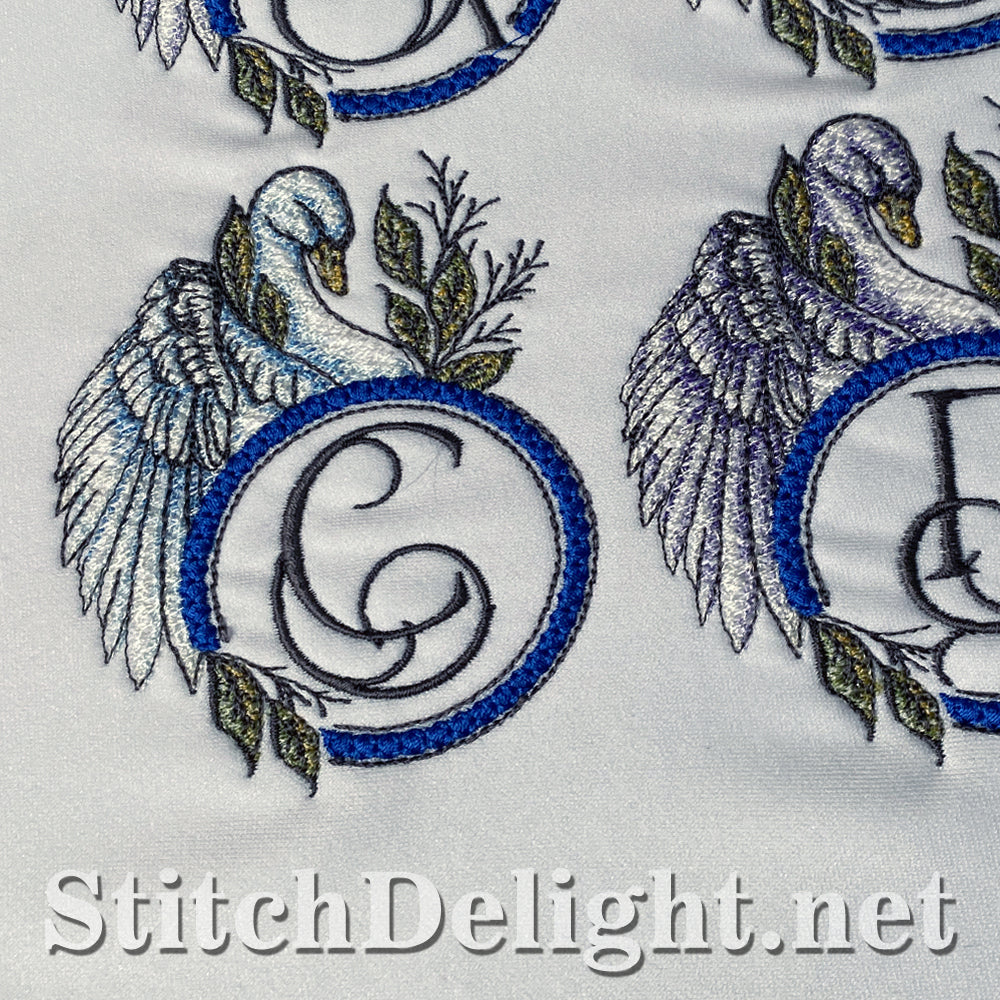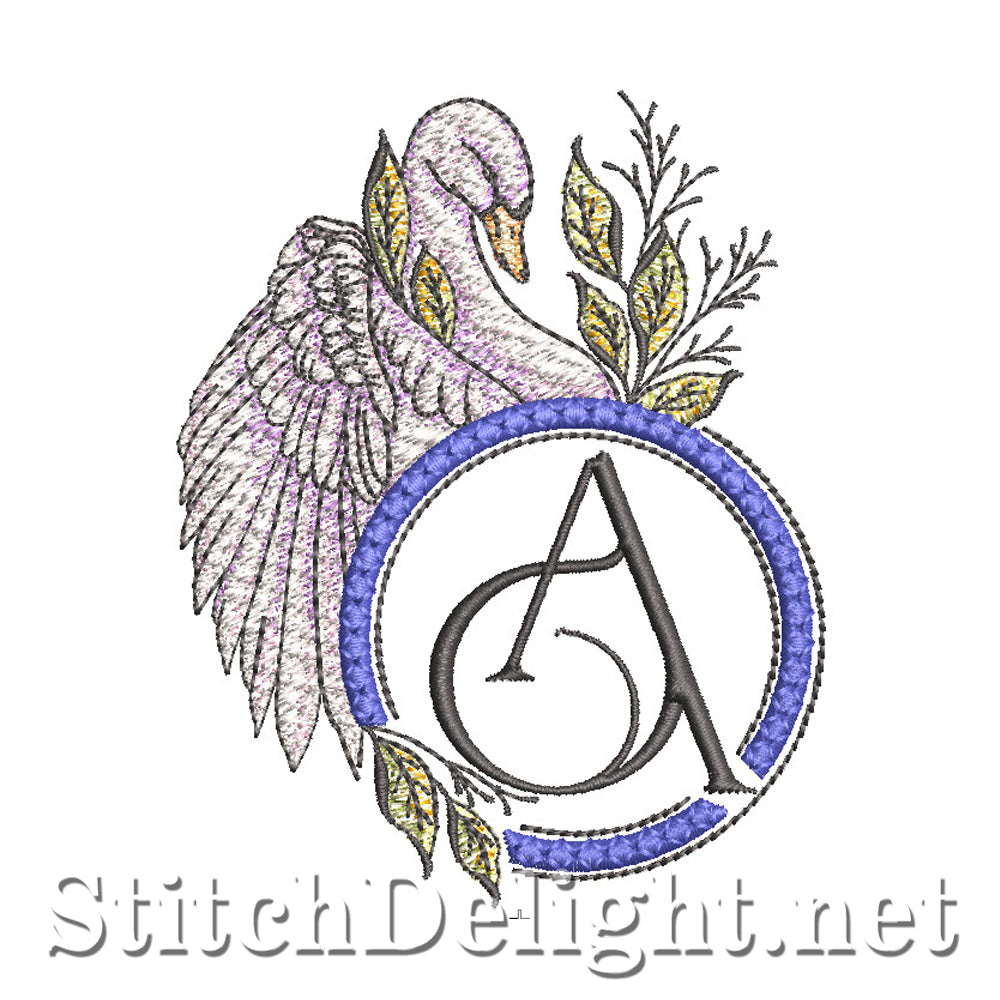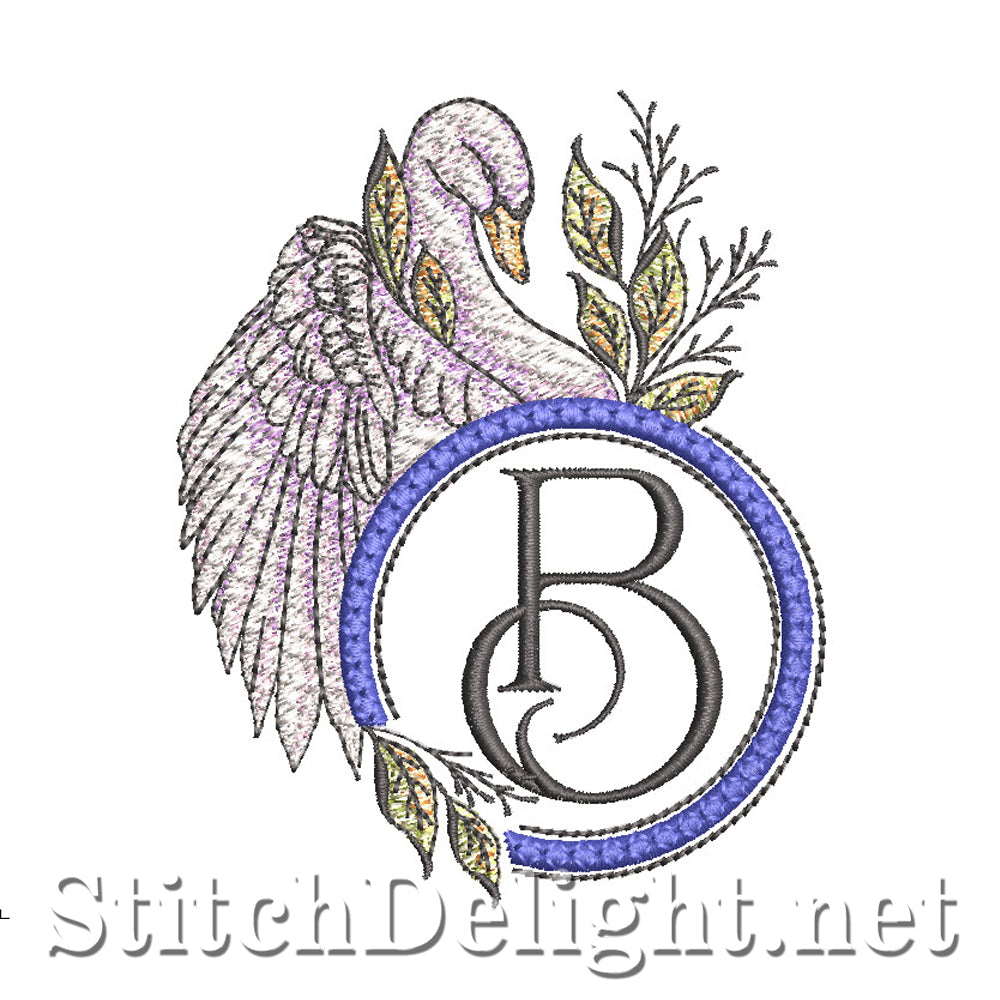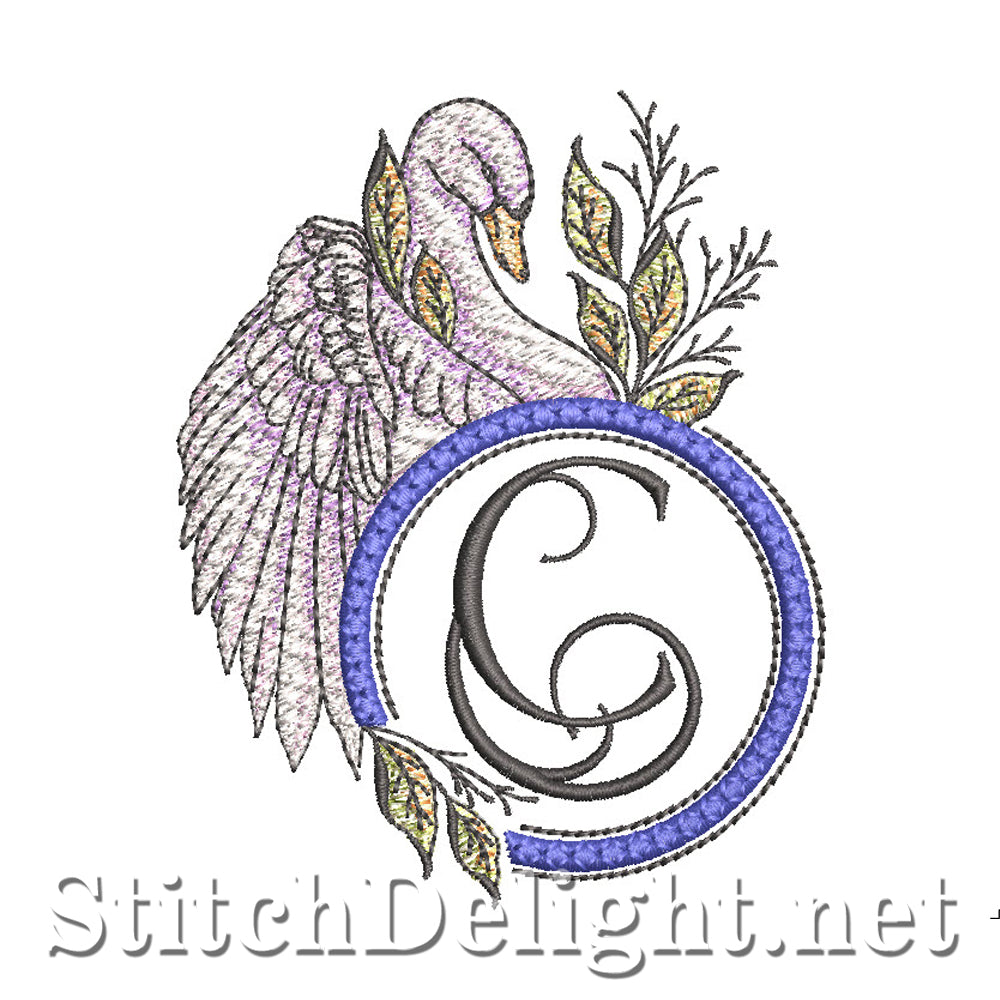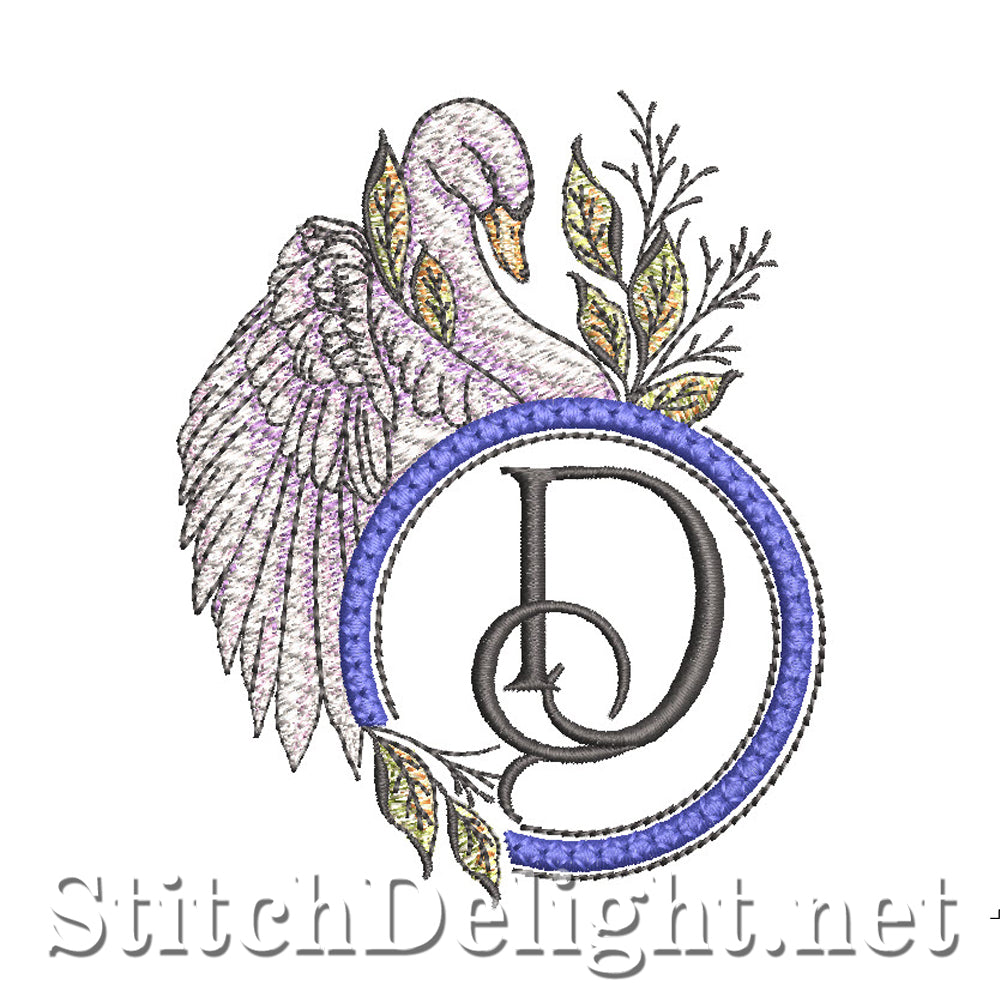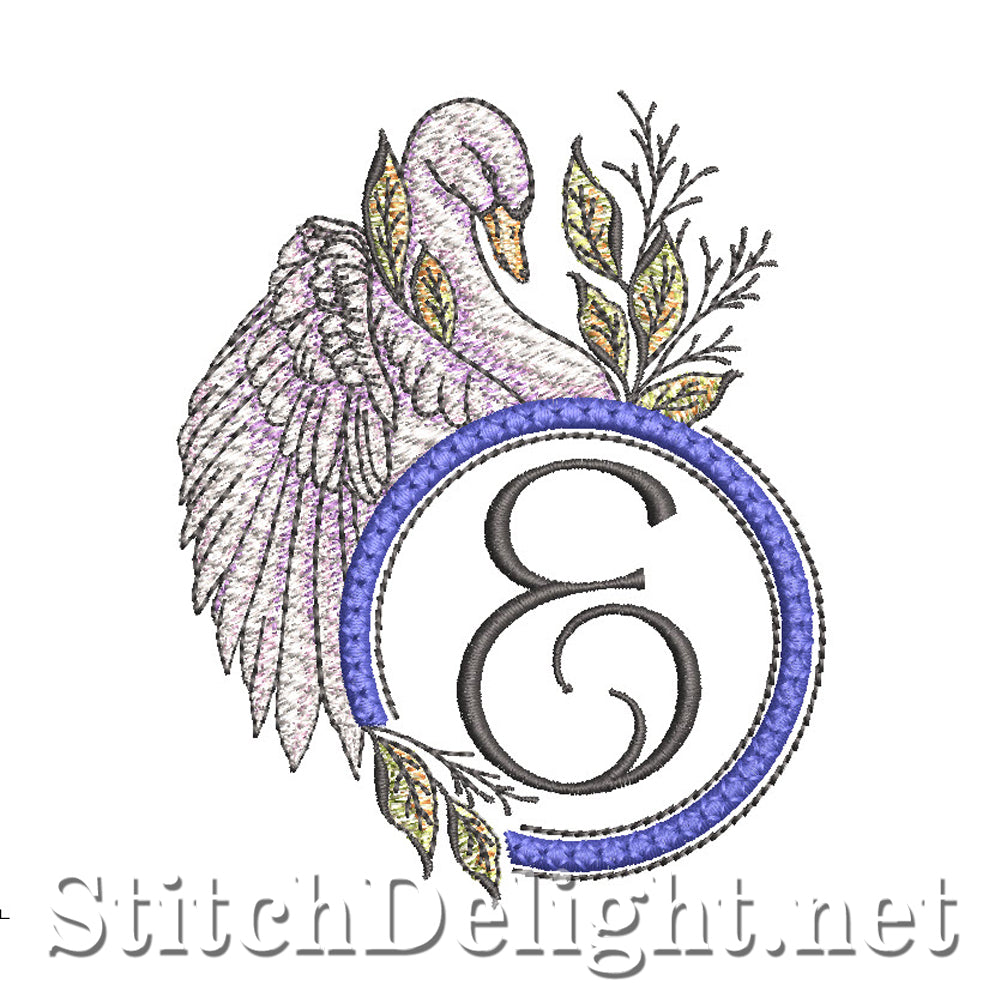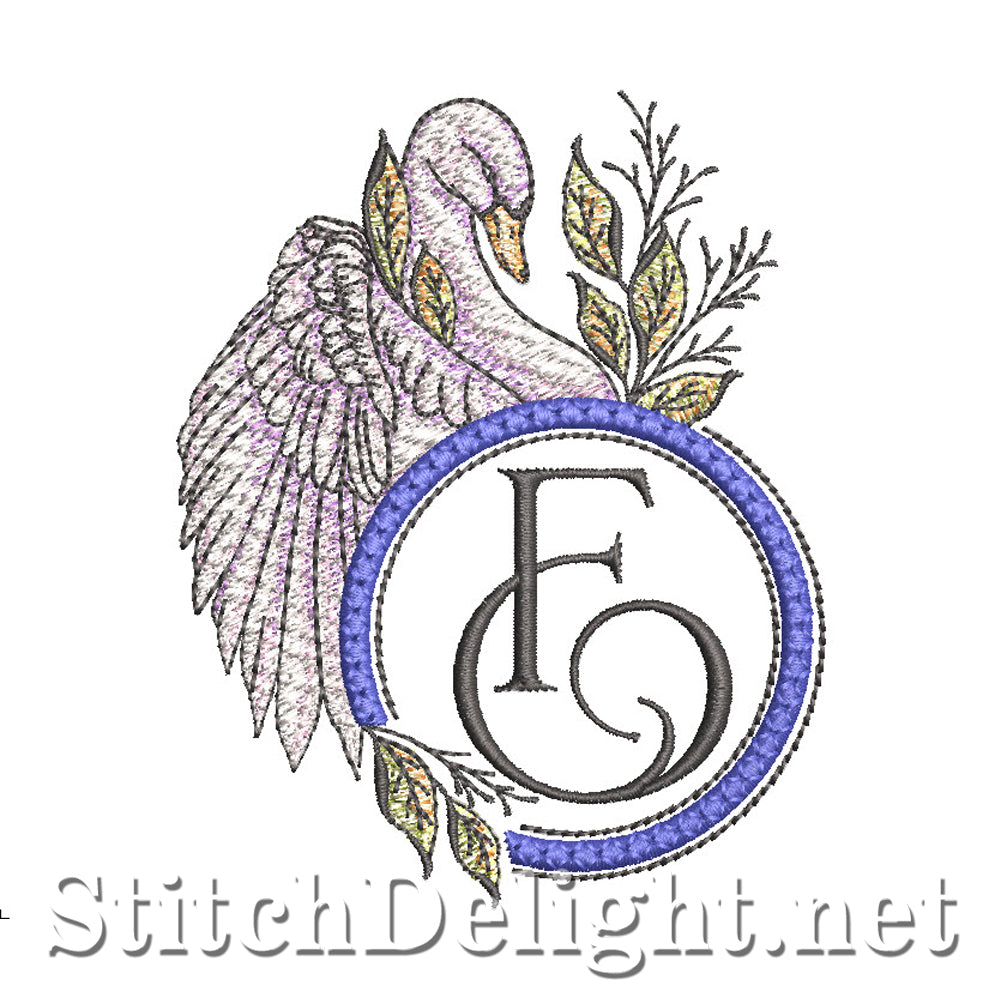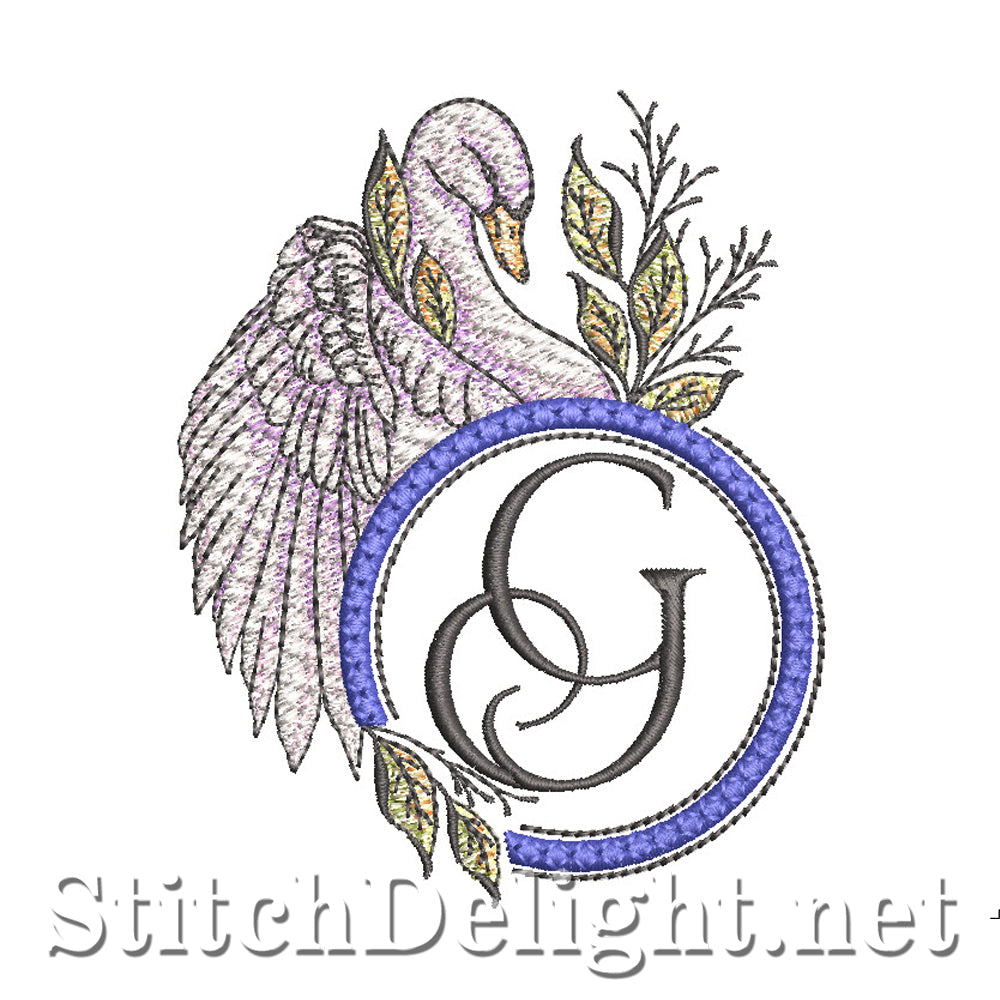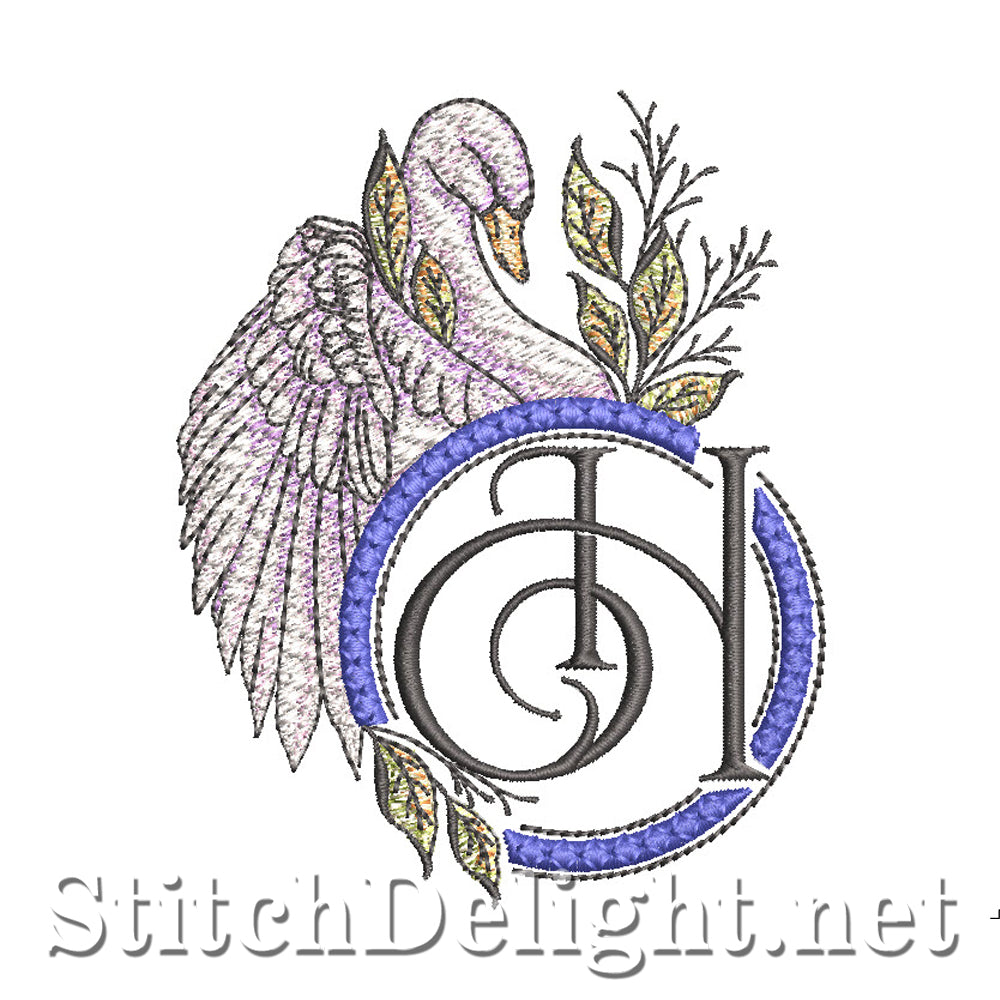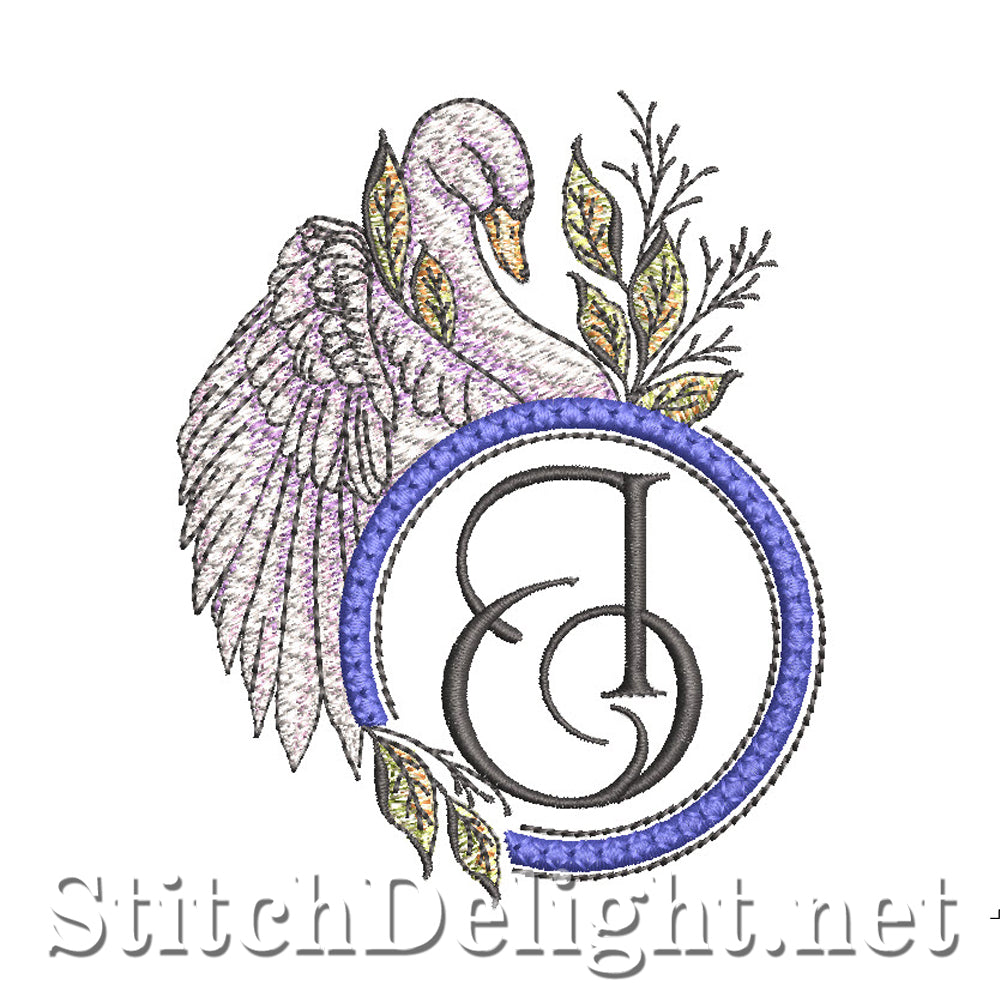
This elegant font set includes 26 monogramed letters with an average height of 3,9" making it perfect for use in your 4x4" hoop. This is a collectors font, meaning you'll be collecting it one letter a day whilst it's sold at $2. For more info vie wour FAQ page. Checkout the matching font for this set at SDS4246